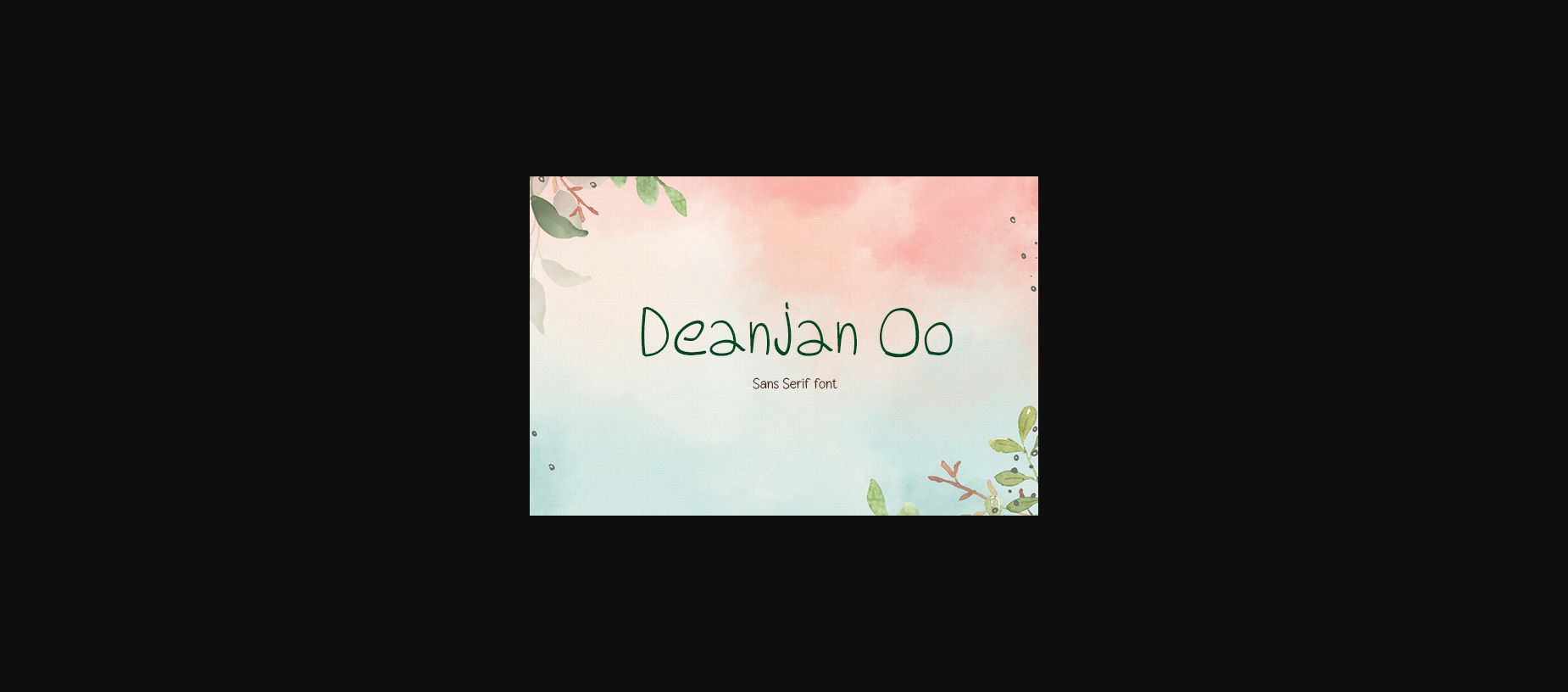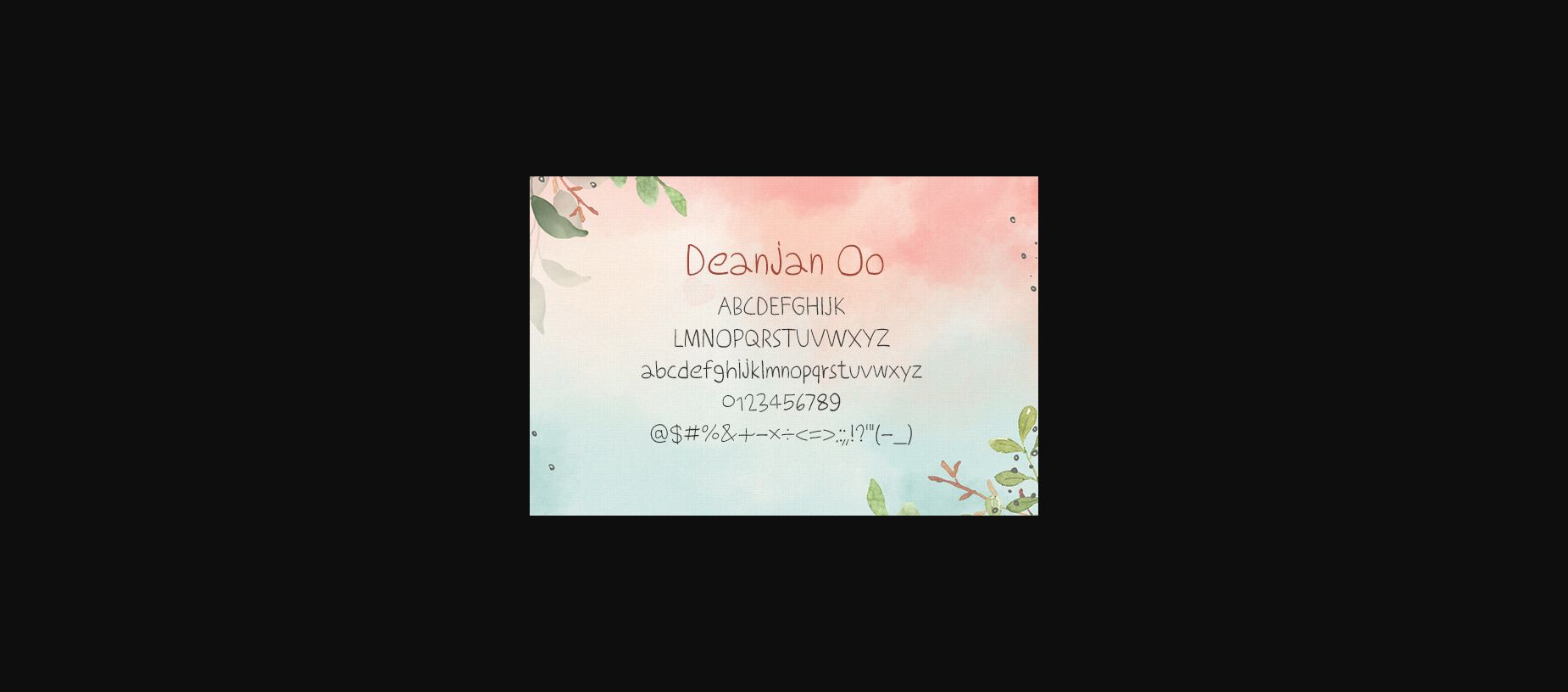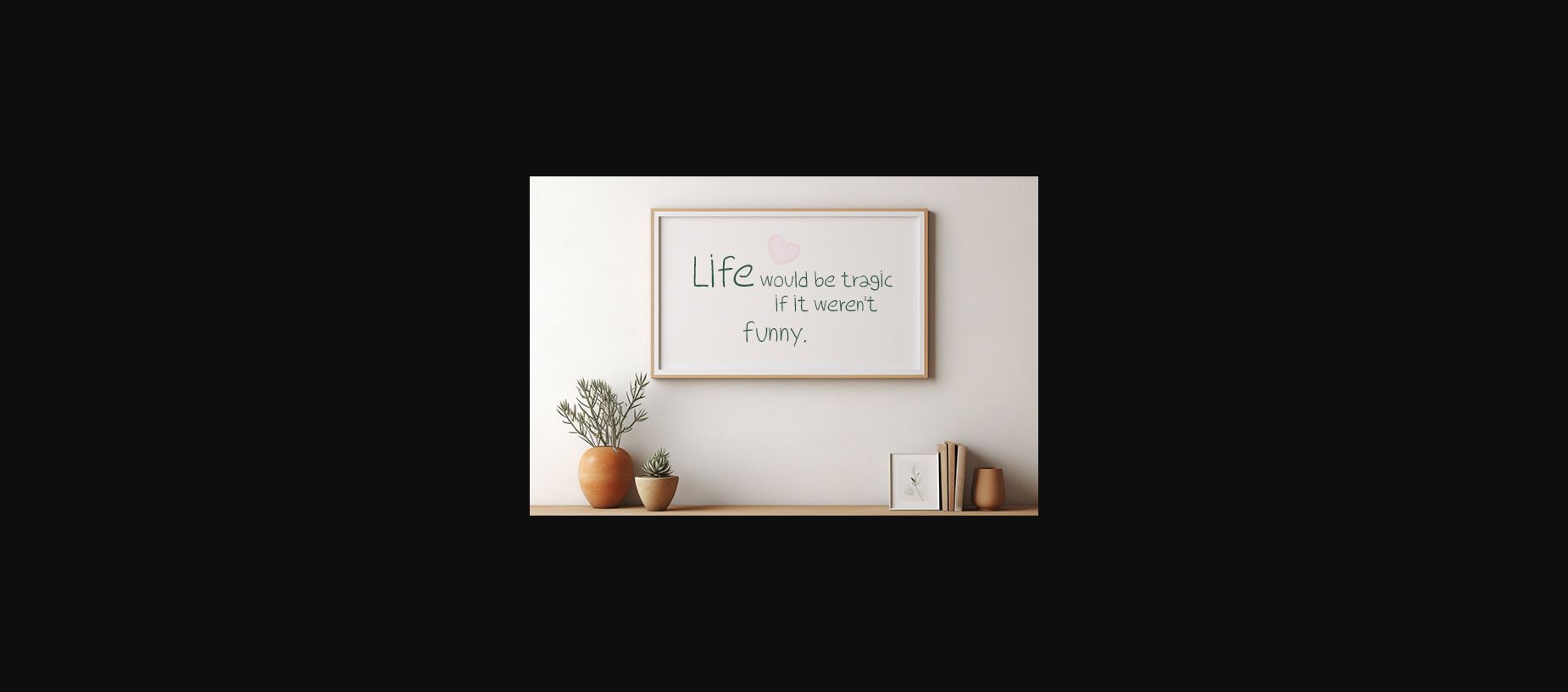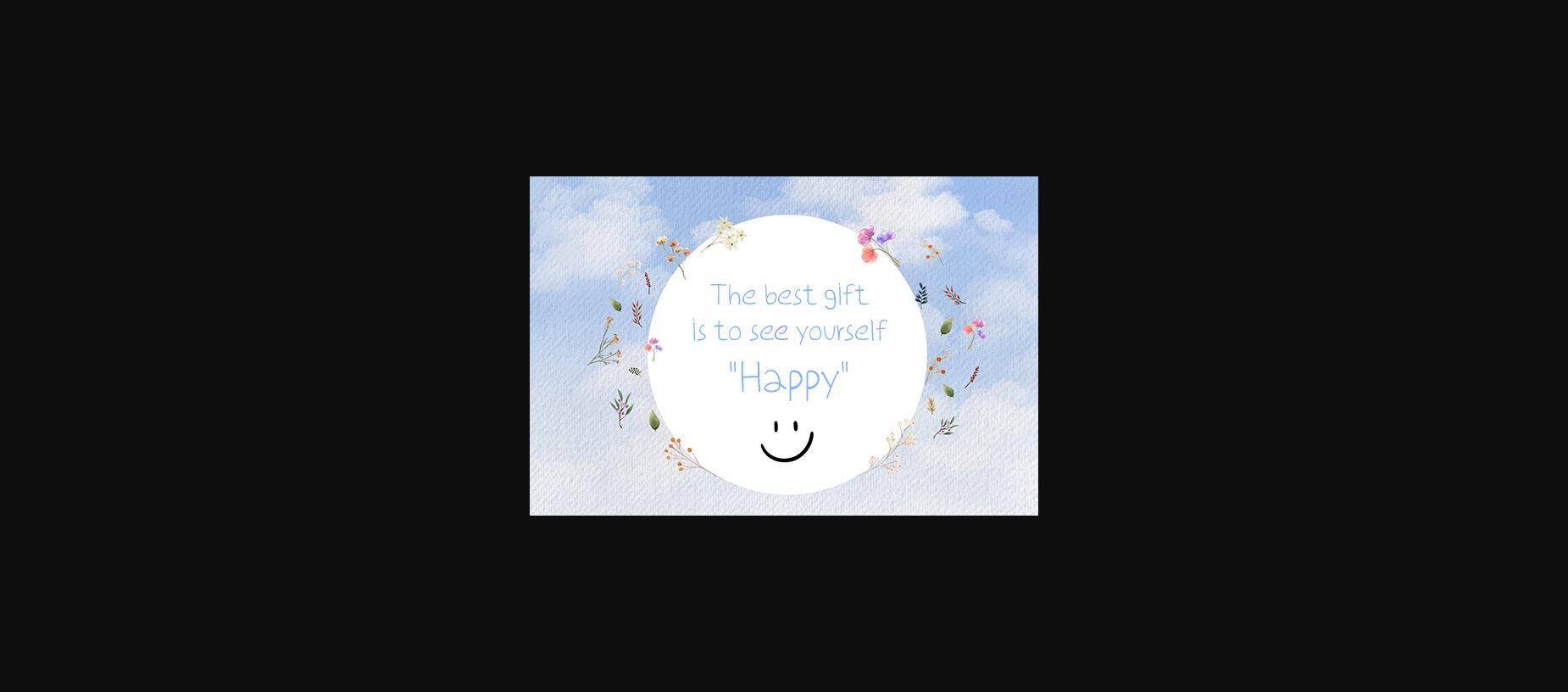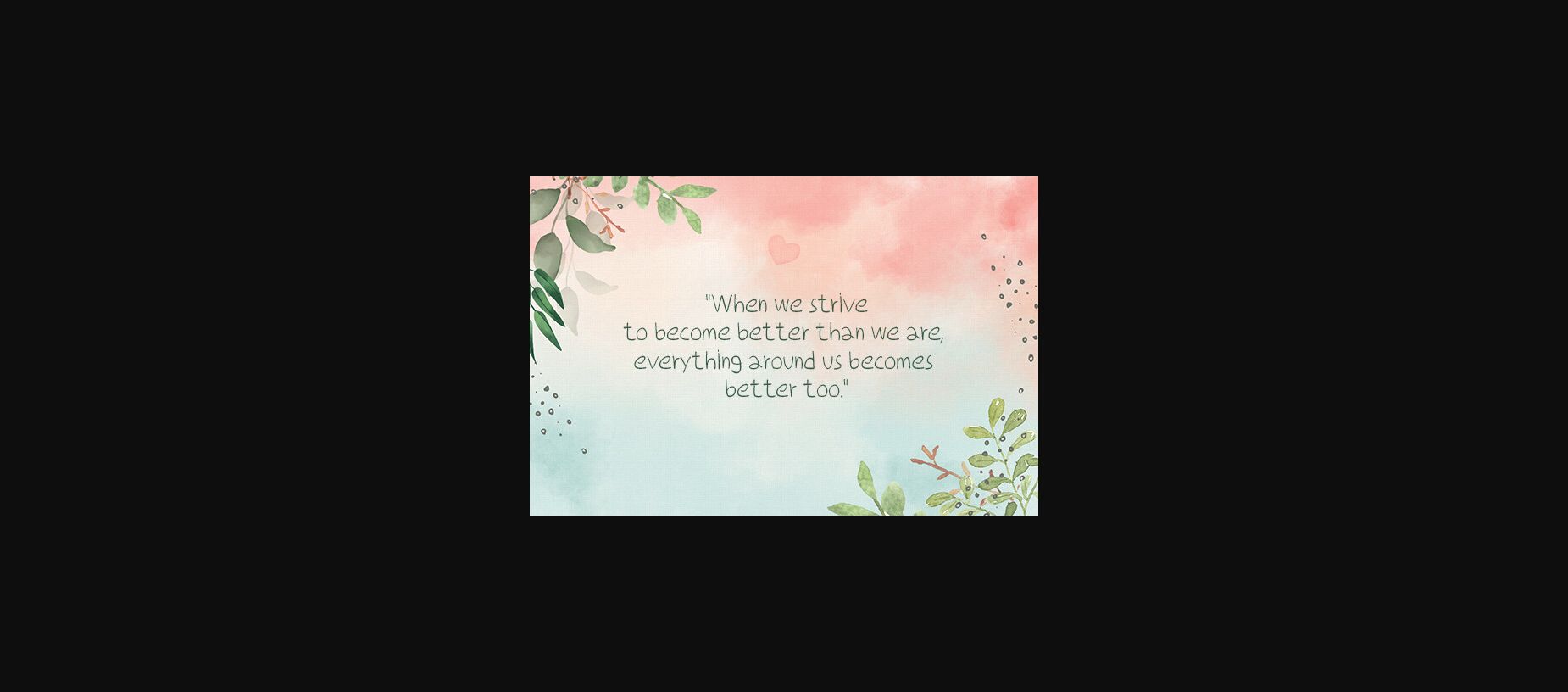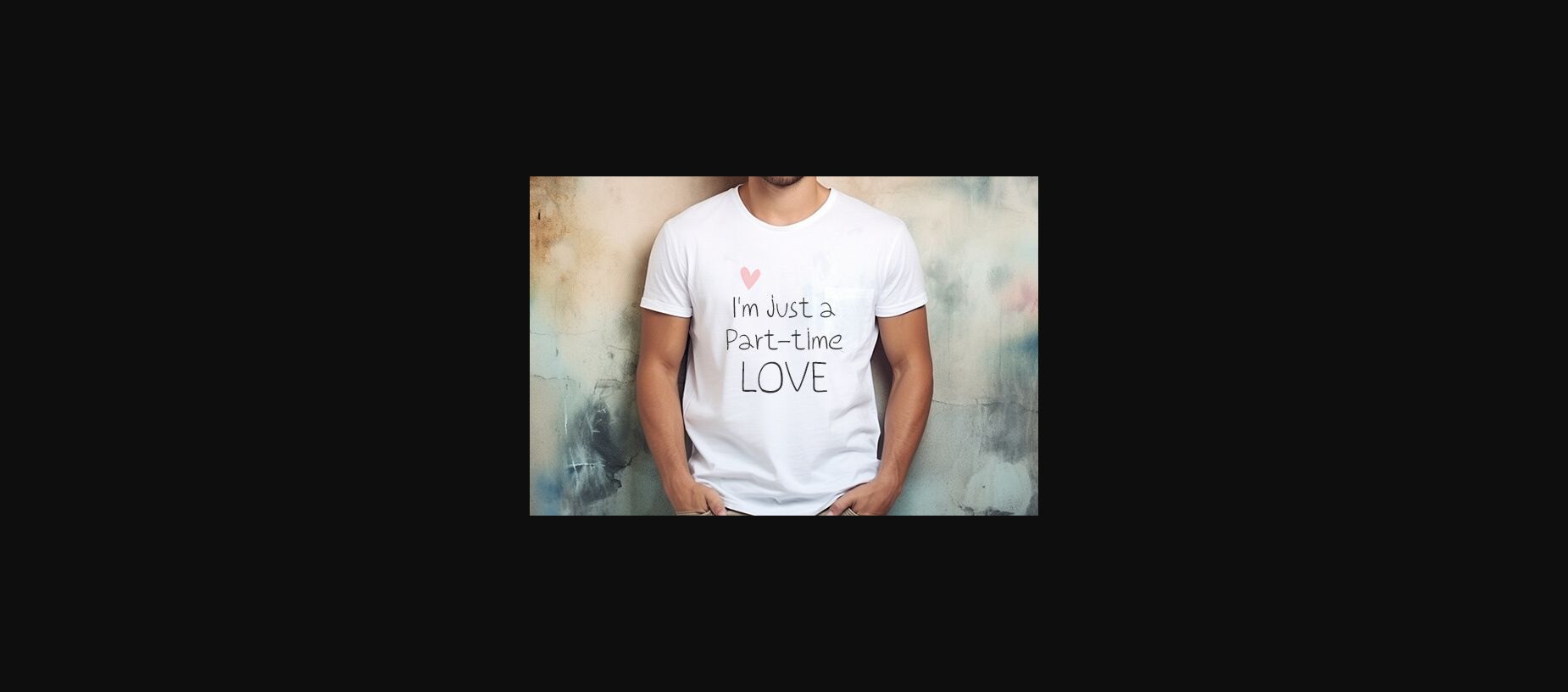
HomeSans Serif FontsDeanjan Oo Font Sans Serif Fonts Deanjan Oo Font FacebookXPinterestWhatsApp 1 of 8 ... Deanjan Oo Font Poster 2... Deanjan Oo Font Poster 3... Deanjan Oo Font Poster 4... Deanjan Oo Font Poster 5... Deanjan Oo Font Poster 6... Deanjan Oo Font Poster 7... Deanjan Oo Font Poster 8... About Deanjan Oo Font Deanjan Oo is designed in a cute and playful sans serif font style. It would be an awsome addition to your fun projects and creative designs. DOWNLOAD NOW People also explored The Lovely Font Relight Script Font Monteners Font Kingstone Sans Font Starlynx Font Weguiawiba Font The Creative Font Alondra Katalina Font Cartons Font 280 0 TagsDeanjan Oo Font Previous articleErtelor FontNext articlePersimmon Font LEAVE A REPLY Cancel reply Comment: Please enter your comment! Name:* Please enter your name here Email:* You have entered an incorrect email address! Please enter your email address here Website: Save my name, email, and website in this browser for the next time I comment. Personal Use Free Merak Personal Use Free Read more about this font Kellana Personal Use Free Read more about this font Single Sleeve Personal Use Free Read more about this font The Shocker Personal Use Free Read more about this font BLOG Best Fonts for T-Shirt Design – Top 2025 Picks In 2025, t-shirt design has become more than just fashion—it's a form of self-expression. Whether you're... Modern Sans-Serif Fonts That Brands Love in 2025 Where to Buy American Fonts Online in 2024 The 10 Best Handwriting Fonts to Add Personality to Your Designs